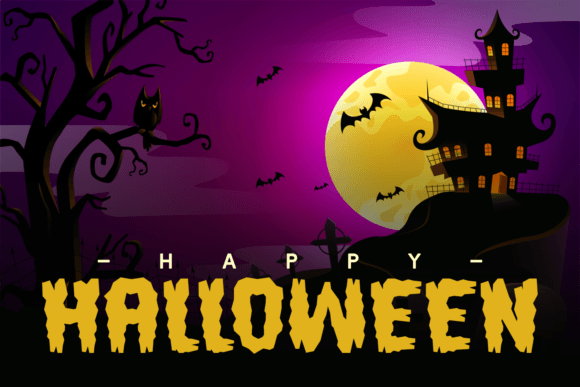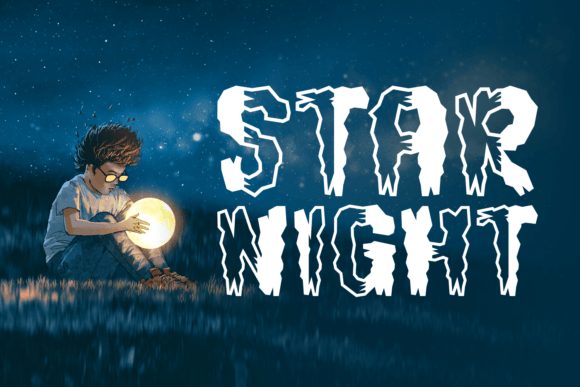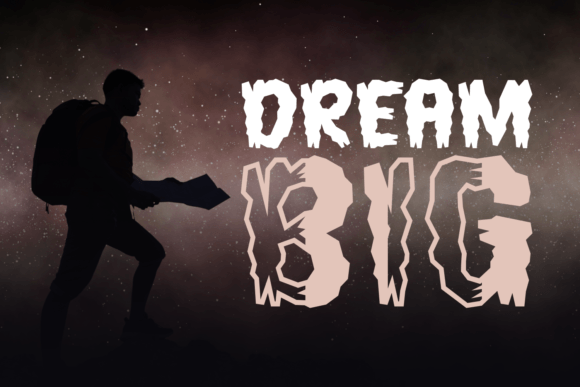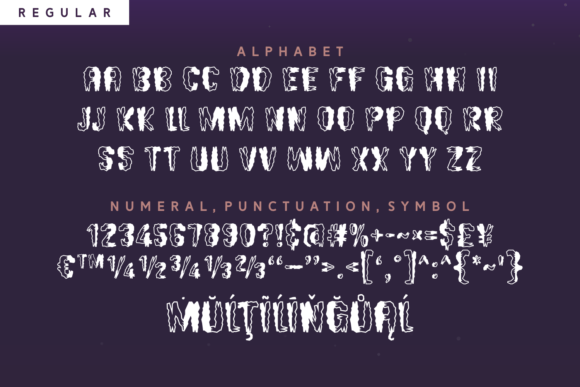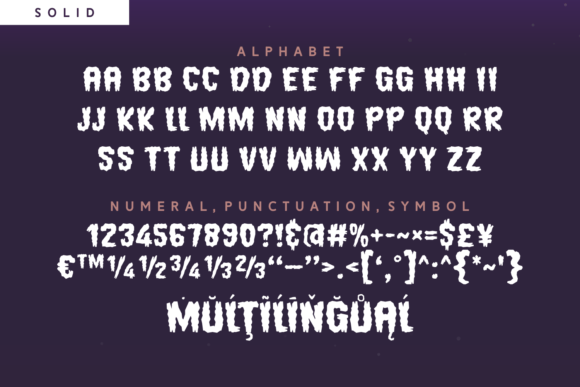
Unleash the Spookiness: Discover the Gloria Night Font Duo
Are you on the hunt for a font that will add a dash of spookiness and fun to your Halloween-themed projects? Look no further than the Gloria Night Font duo! This captivating font is the perfect match for designers, crafters, and DIY enthusiasts looking to create eye-catching and eerie designs. In this article, we’ll dive into the features and benefits of the Gloria Night Font, and explore the various ways you can use it to elevate your creative projects.
What is Gloria Night Font?
Gloria Night Font is a unique and versatile font duo that consists of two complementary fonts: a regular version and a solid version. The regular version features a spooky, handwritten-style font with intricate details and a touch of eeriness, while the solid version offers a bold and edgy look. This font duo is specifically designed to add a creepy-cool vibe to your designs, making it perfect for Halloween-themed projects, Gothic-inspired designs, and even tattoo art.
Key Features of Gloria Night Font
- Font Duo: Gloria Night Font comes with two complementary fonts: a regular version and a solid version, allowing you to mix and match to create unique designs.
- Spooky and Fun: This font duo is designed to add a touch of spookiness and playfulness to your designs, making it perfect for Halloween-themed projects.
- Highly Versatile: Gloria Night Font can be used for a wide range of projects, including t-shirts, quotes, posters, covers, 3D prints, food and drink menus, tattoo designs, and more.
Creative Ways to Use Gloria Night Font
Gloria Night Font is an incredibly versatile font duo that can be used for a wide range of creative projects. Here are some ideas to get you started:
- T-Shirts and Apparel: Add a spooky touch to your t-shirt designs with Gloria Night Font. Create eye-catching quotes, phrases, and graphics that will make your designs stand out.
- Halloween Posters and Flyers: Create eerie and inviting posters and flyers for Halloween parties, haunted houses, and other spooky events.
- Tattoo Designs: Use Gloria Night Font to create unique and bold tattoo designs that will make your artwork stand out.
- Food and Drink Menus: Add a touch of spookiness to your restaurant or bar’s menu with Gloria Night Font. Create creepy-cool menu boards and flyers that will attract customers.
- 3D Prints: Use Gloria Night Font to create intricate and spooky designs for 3D printing. From creepy figurines to eerie decorations, the possibilities are endless.
Tips and Tricks for Using Gloria Night Font
To get the most out of Gloria Night Font, here are some tips and tricks to keep in mind:
- Experiment with Font Combinations: Try pairing Gloria Night Font with other fonts to create unique and eye-catching designs.
- Play with Colors: Experiment with different colors and textures to add depth and interest to your designs.
- Keep it Simple: Don’t be afraid to keep your designs simple and bold. Gloria Night Font is perfect for creating striking and eye-catching designs.